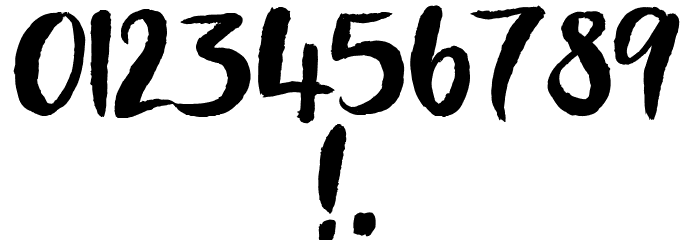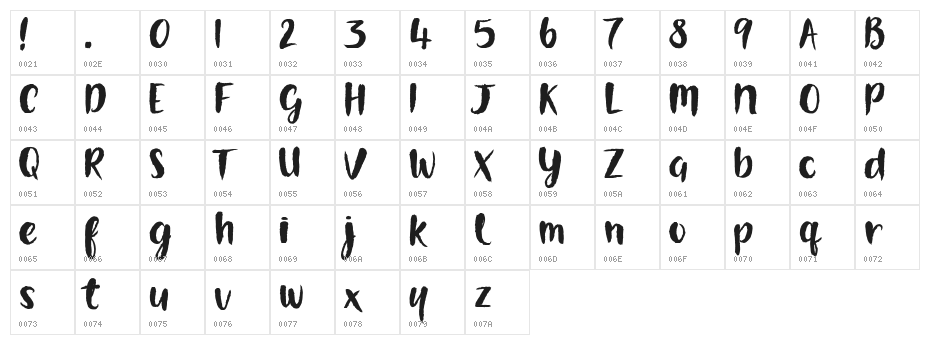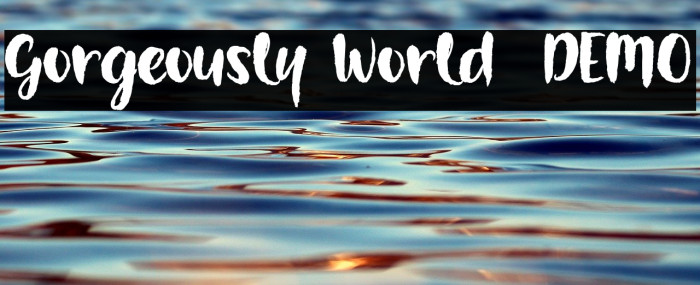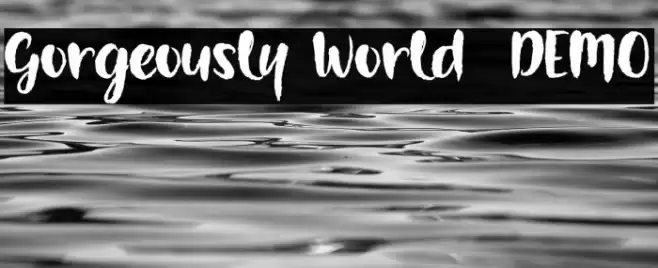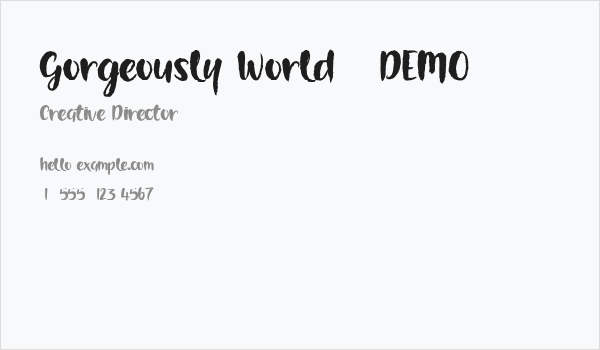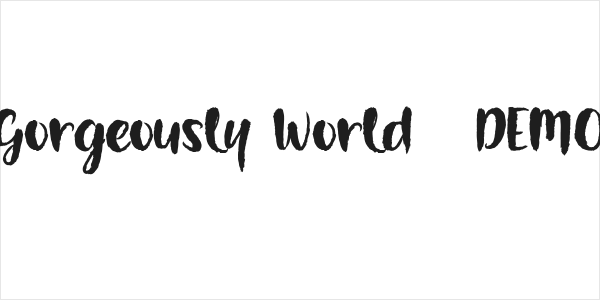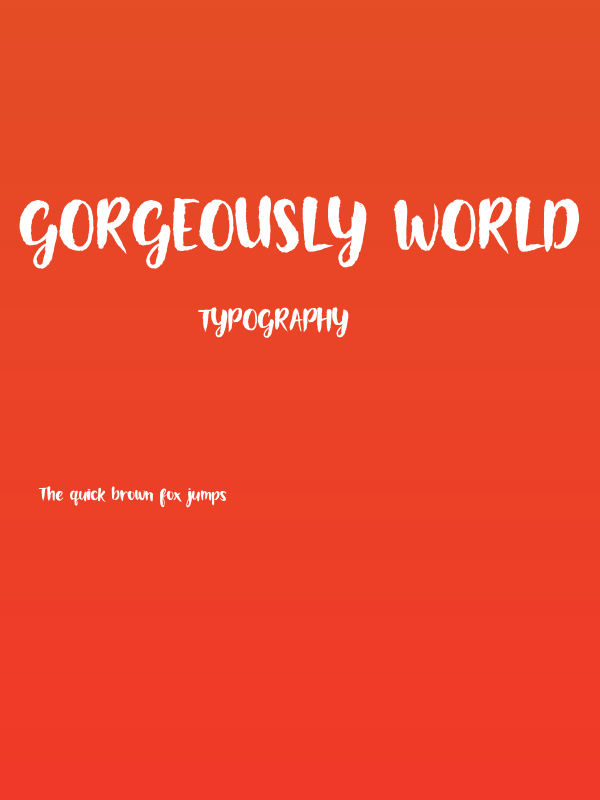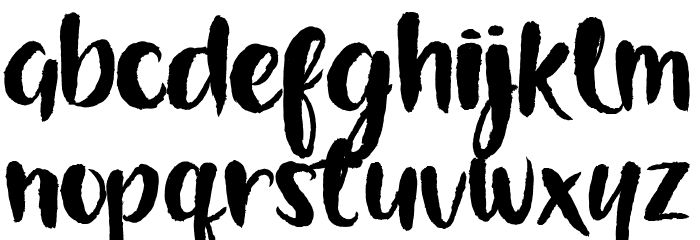
Gorgeously World - DEMO Font
Gorgeously World - DEMO Description
This font exudes a bold, expressive style with its brush-like strokes and dynamic character forms. The uppercase letters are robust and commanding, while the lowercase letters maintain a fluid and artistic appearance. The numbers are equally bold, ensuring they stand out in any design. The special characters add a playful touch, enhancing the font's versatility. The overall design is reminiscent of hand-painted signage, making it perfect for projects that require a personal and creative touch.